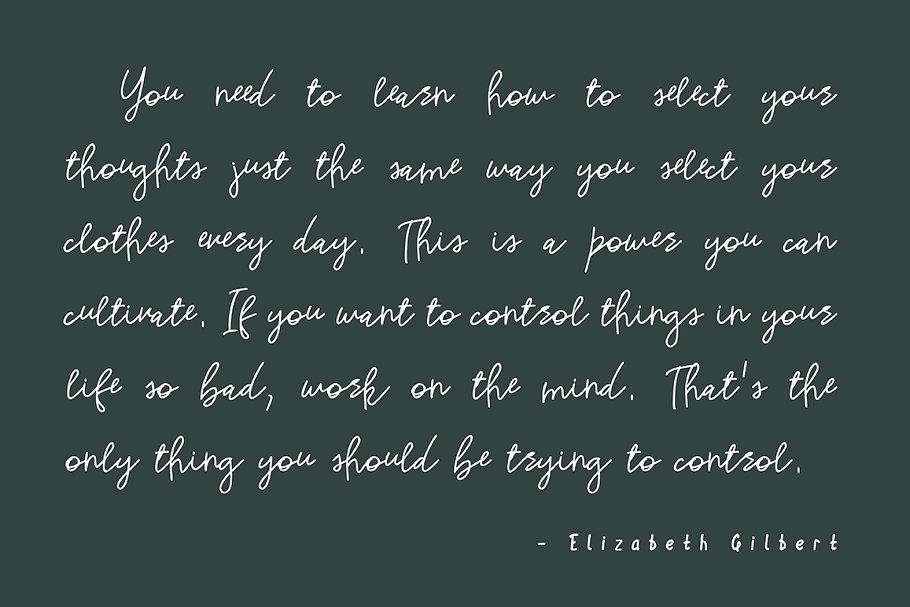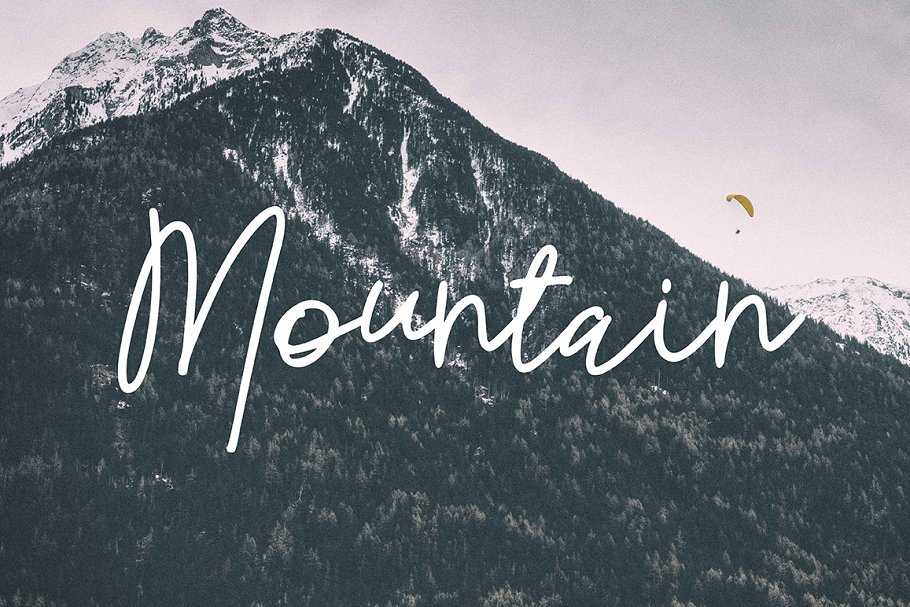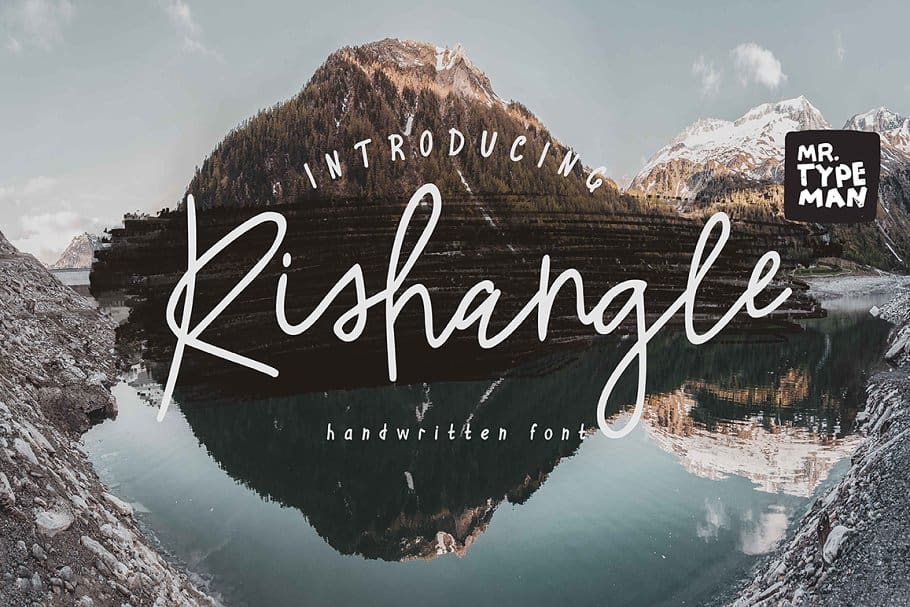
Rishangle Handwritten Font
This is signature handwritten, easy to use, naturally from handmade. Come with unique character, with vibe of real lettering make the a lot of ligature, alternated make the signature style perfect. Introducing Rishangle Font. Rishangle comes with uppercase, lowercase, standard punctuation, numerals and special letters for most of the European languages. Rishangle perfect for photography, watermark, social media posts, advertisements, logos & branding, invitation, product designs, label, stationery, wedding designs, product packaging, etc.